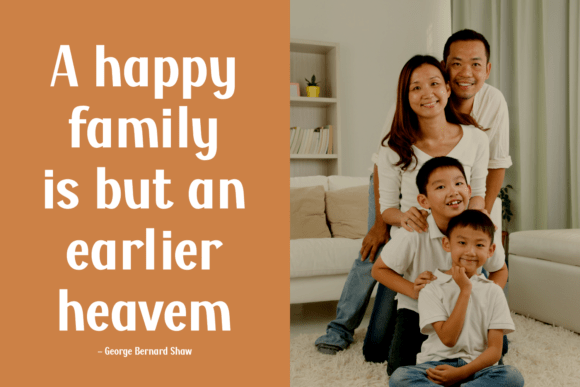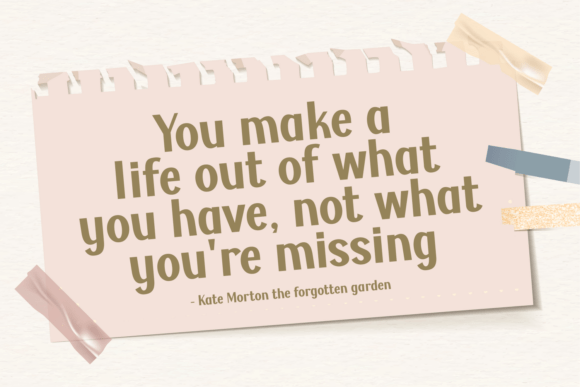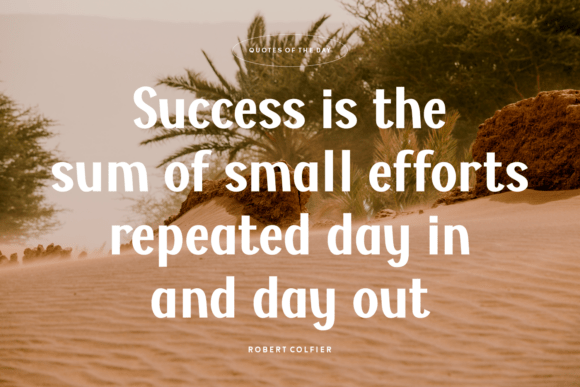
Bend Expert Font: Elevate Your Designs with a Modern Sans Serif
In the world of typography, a font can make or break a design. With the right font, you can convey your message with clarity, style, and professionalism. Introducing Bend Expert, a clean and versatile modern sans serif font that’s taking the design world by storm. In this article, we’ll dive into the features, benefits, and uses of Bend Expert, and explore why it’s becoming a favorite among designers and crafters.
What is Bend Expert Font?
Bend Expert is a modern sans serif font that seamlessly blends geometric structure with smooth curves. This unique combination gives the font a bold yet friendly style, making it perfect for a wide range of applications. Whether you’re working on branding, headlines, posters, packaging, or digital designs, Bend Expert is the perfect choice.
Key Features of Bend Expert
- Clean and Versatile: Bend Expert boasts a clean and versatile design that’s suitable for various design projects.
- Modern Sans Serif: The font features a modern sans serif style that’s both contemporary and timeless.
- Geometric Structure: Bend Expert combines geometric structure with smooth curves, giving it a unique and distinctive look.
- Excellent Readability: The font is designed for excellent readability, making it perfect for body text and headlines.
- Bold yet Friendly: Bend Expert’s bold yet friendly style makes it perfect for branding, headlines, and posters.
Benefits of Using Bend Expert
So, why should you choose Bend Expert for your next design project? Here are just a few benefits of using this amazing font:
- Professional Look: Bend Expert gives your designs a professional and polished look that’s sure to impress.
- Versatility: The font is highly adaptable and can be used for a wide range of design projects, from branding to digital designs.
- Easy to Read: Bend Expert’s excellent readability makes it perfect for body text and headlines.
- Unique Style: The font’s unique blend of geometric structure and smooth curves sets it apart from other sans serif fonts.
Uses of Bend Expert
Bend Expert is a versatile font that can be used for a wide range of design projects, including:
- Branding: Use Bend Expert to create a professional and memorable brand identity.
- Headlines: The font’s bold and friendly style makes it perfect for headlines and titles.
- Posters: Bend Expert is ideal for creating eye-catching posters and flyers.
- Packaging: Use the font to create professional and eye-catching packaging designs.
- Digital Designs: Bend Expert is perfect for digital designs, including websites, social media graphics, and more.
Tips for Using Bend Expert
Here are a few tips for getting the most out of Bend Expert:
- Experiment with Font Sizes: Bend Expert looks great in a variety of font sizes, from large headlines to smaller body text.
- Pair with Other Fonts: The font pairs well with other sans serif fonts, as well as serif fonts.
- Use for Body Text: Bend Expert’s excellent readability makes it perfect for body text.